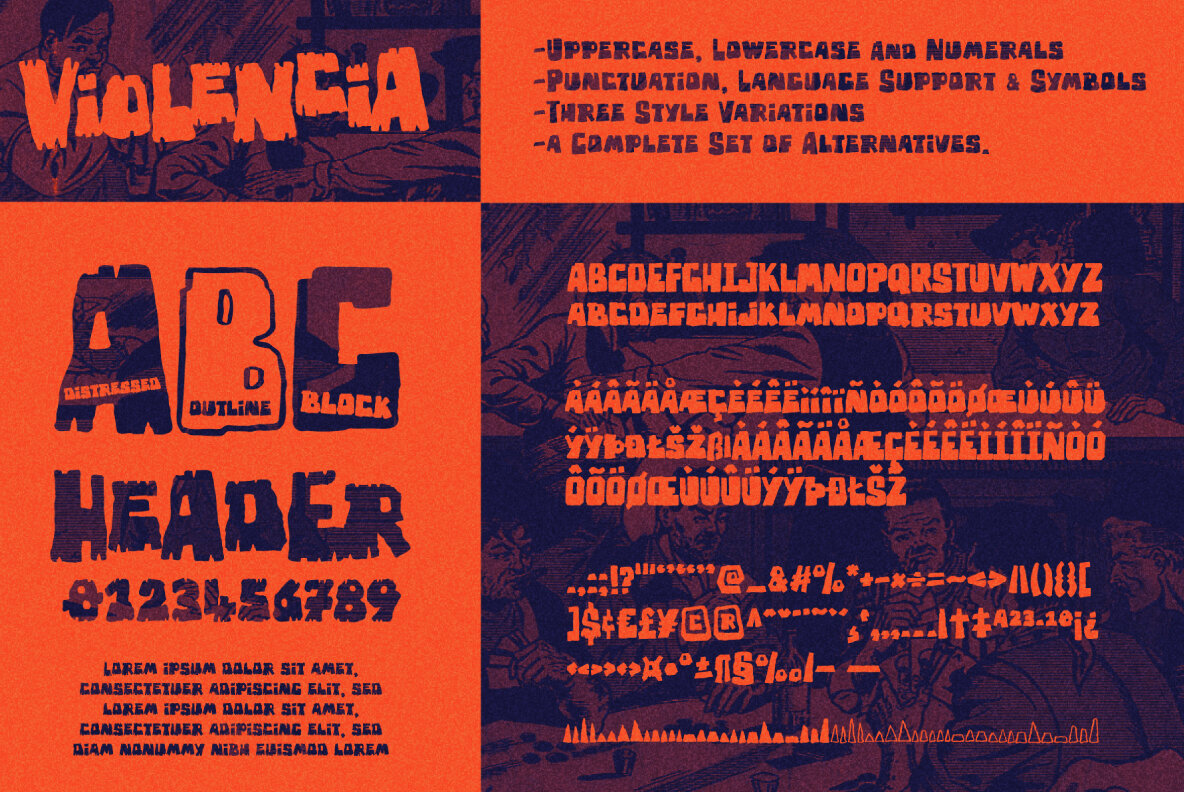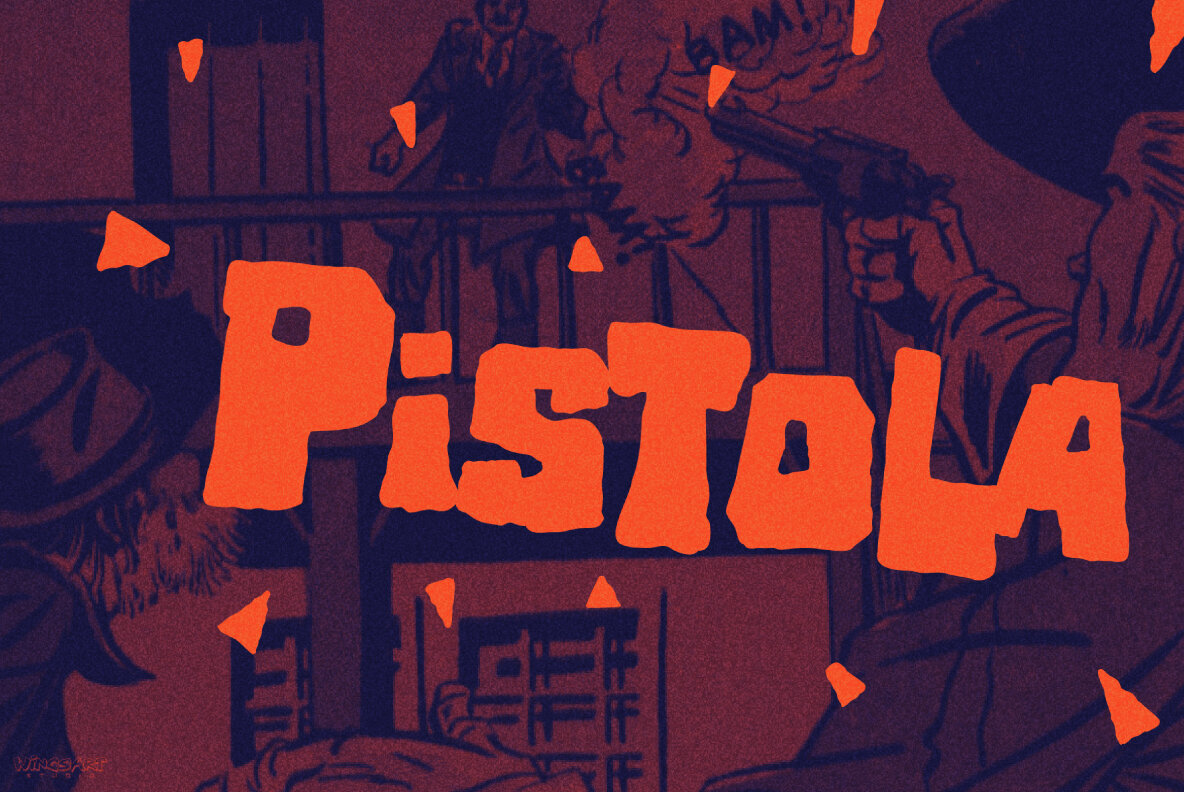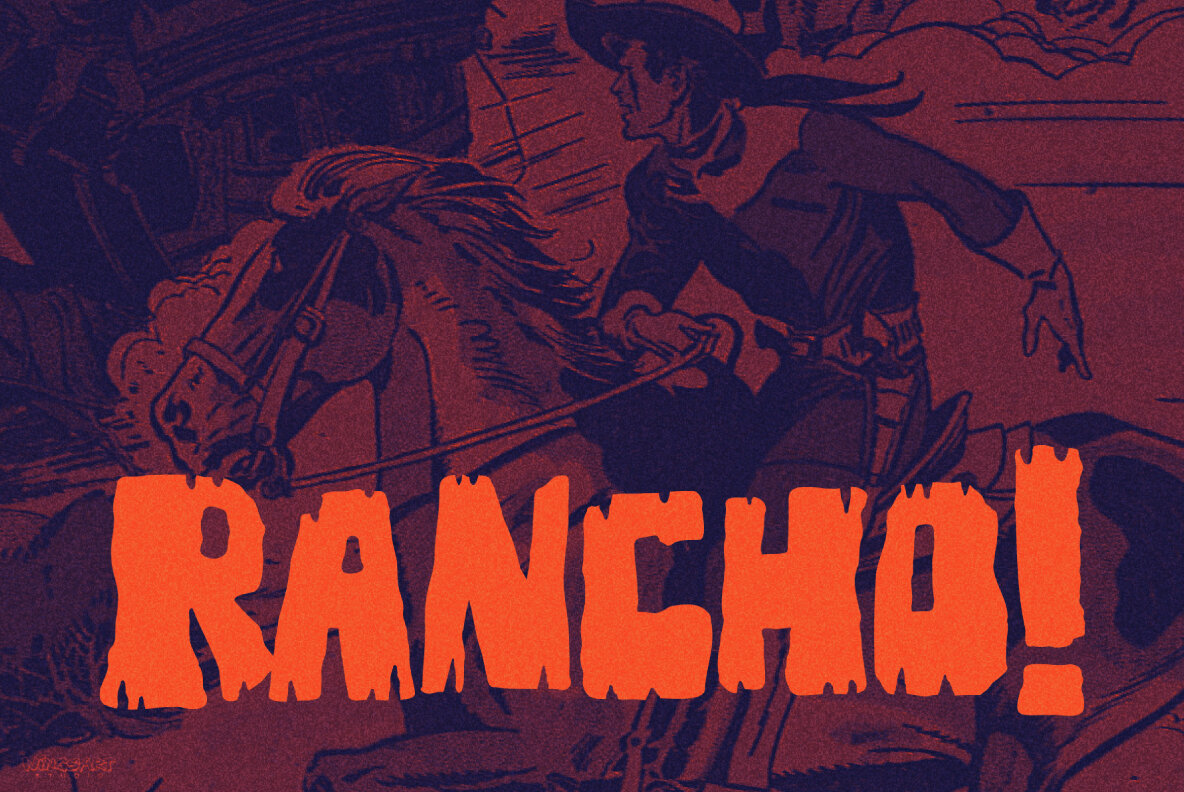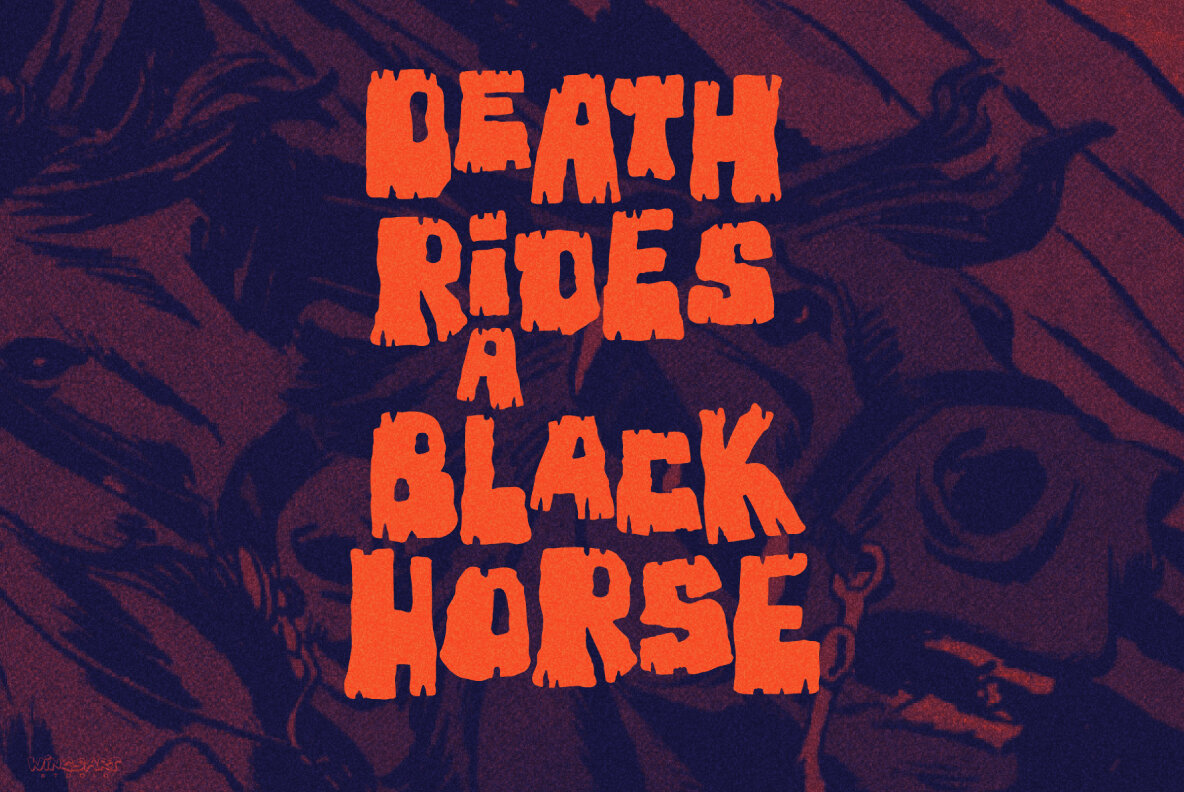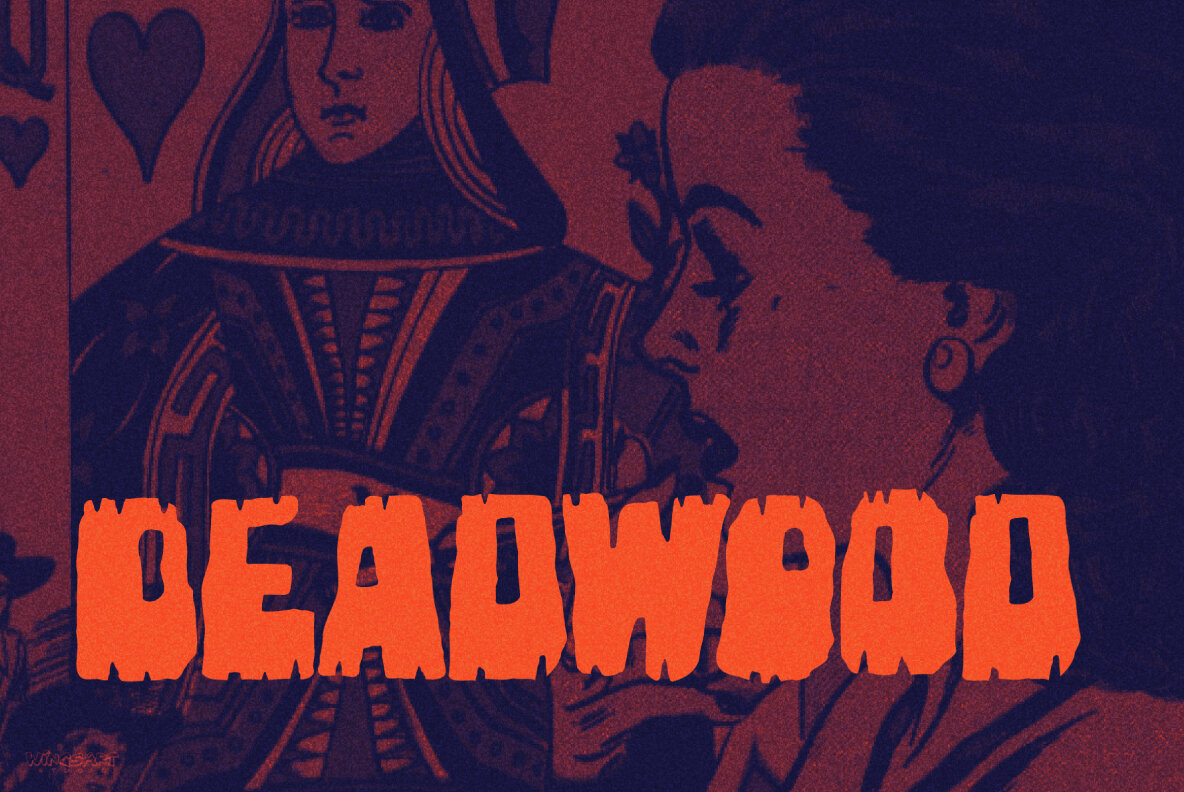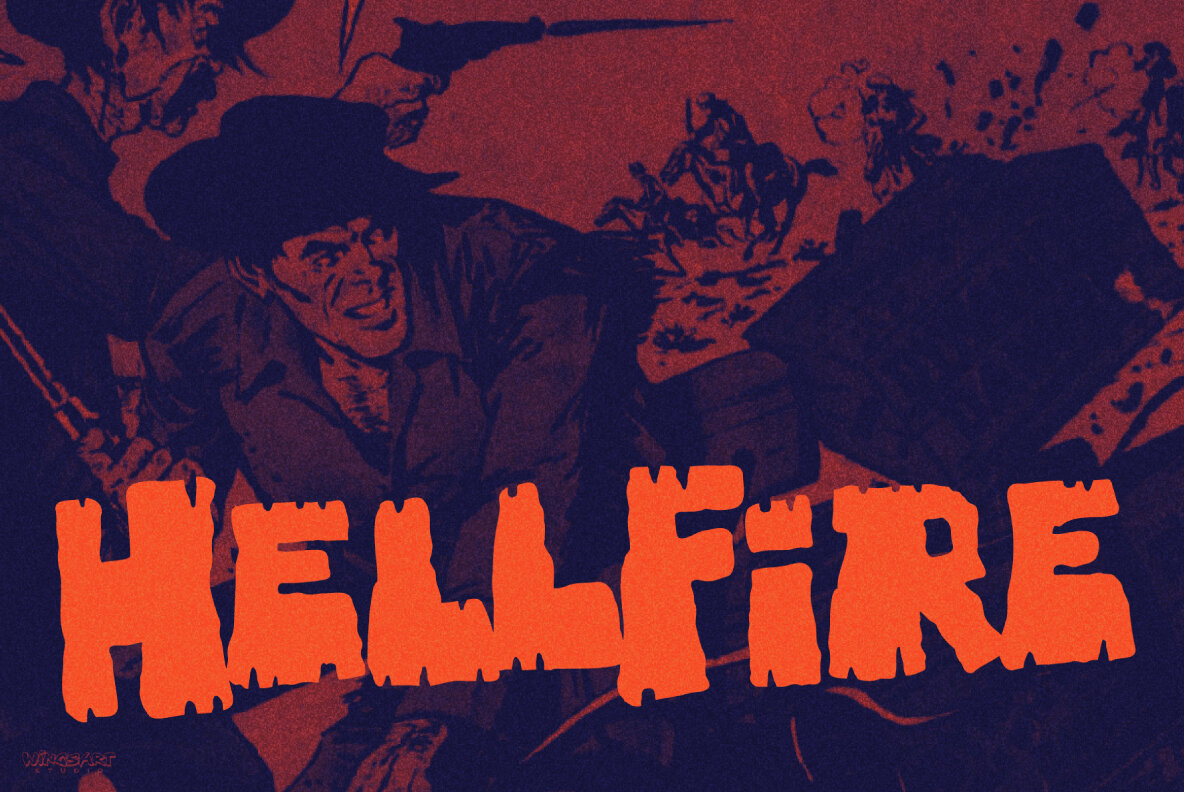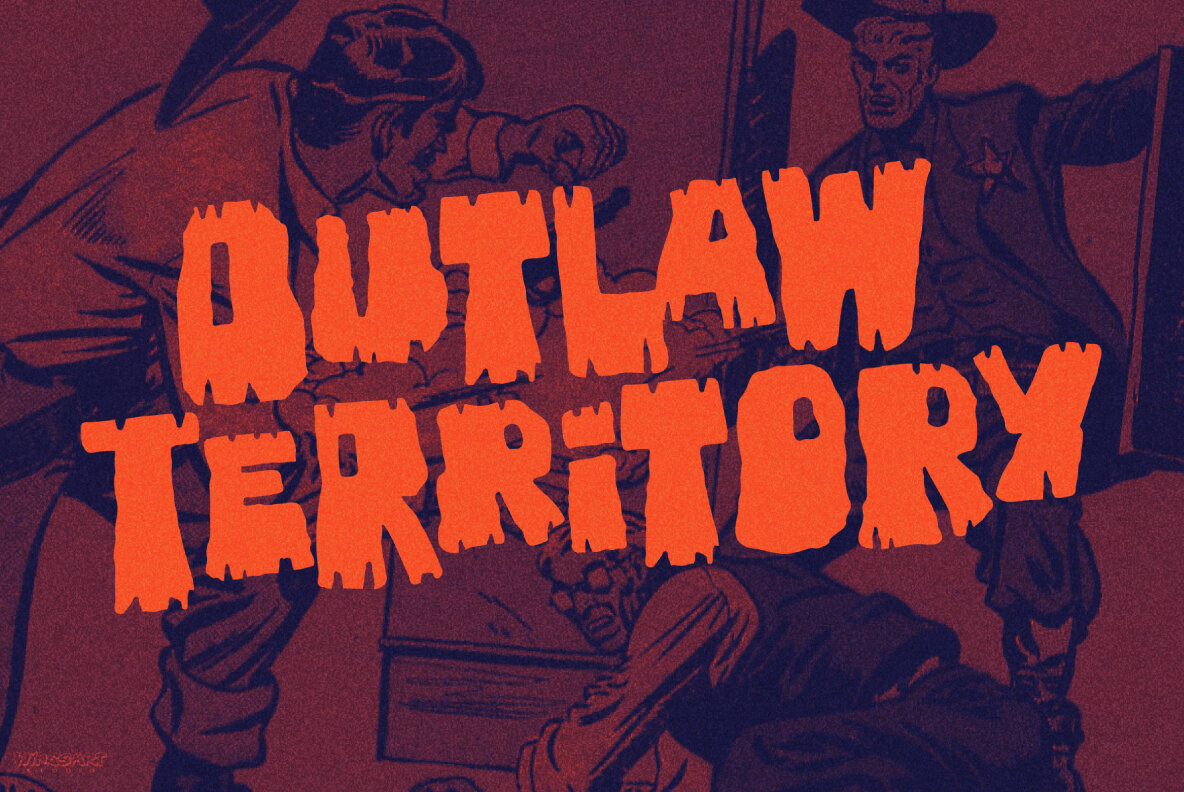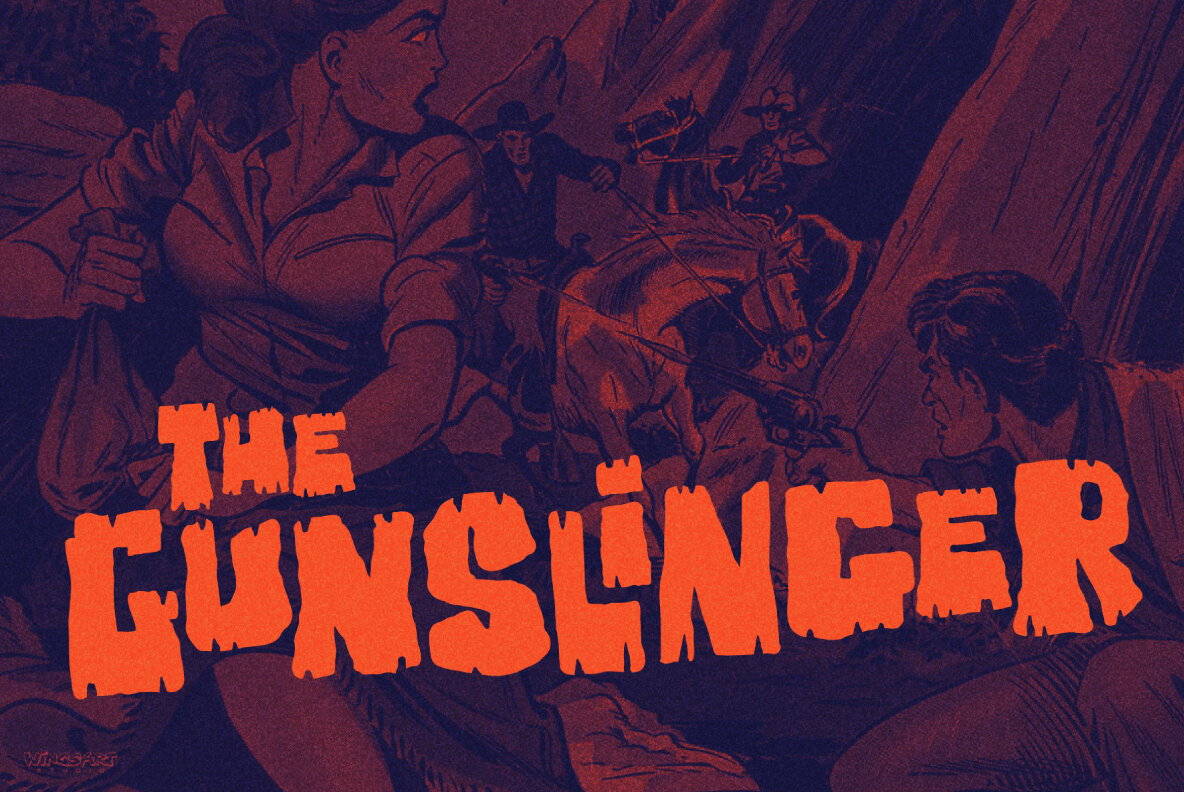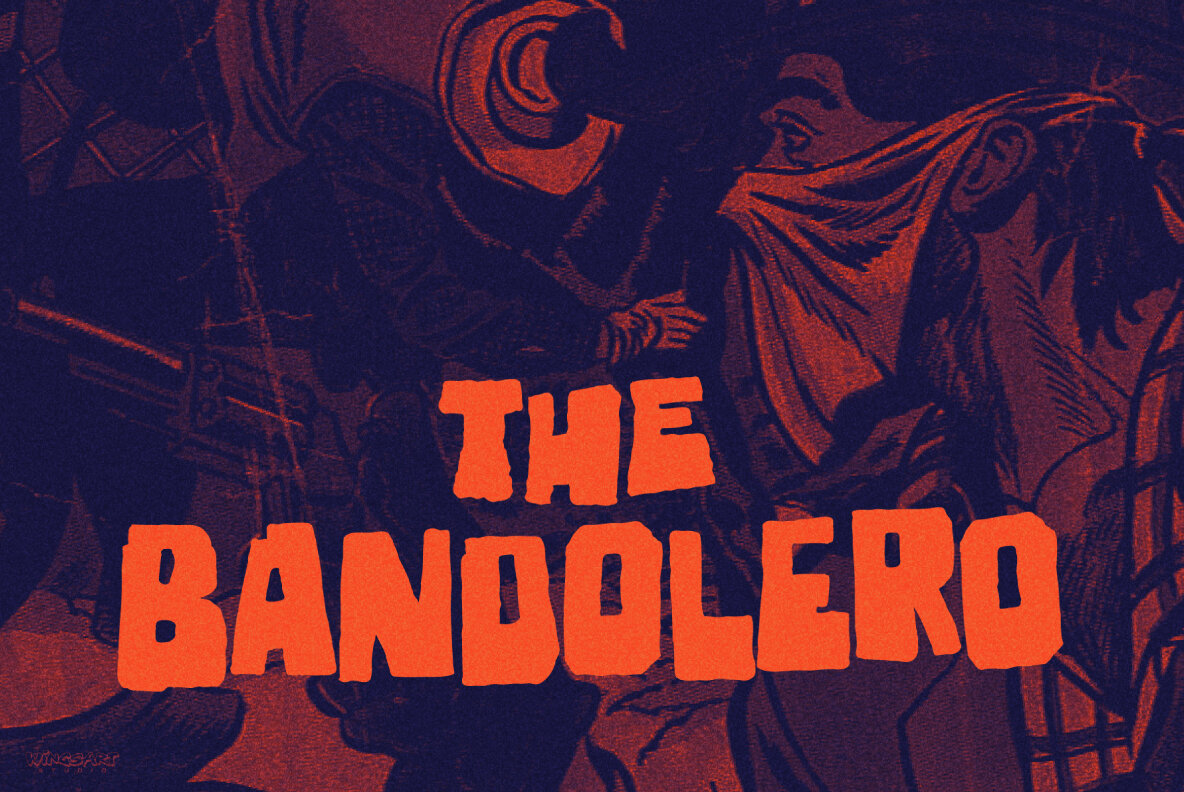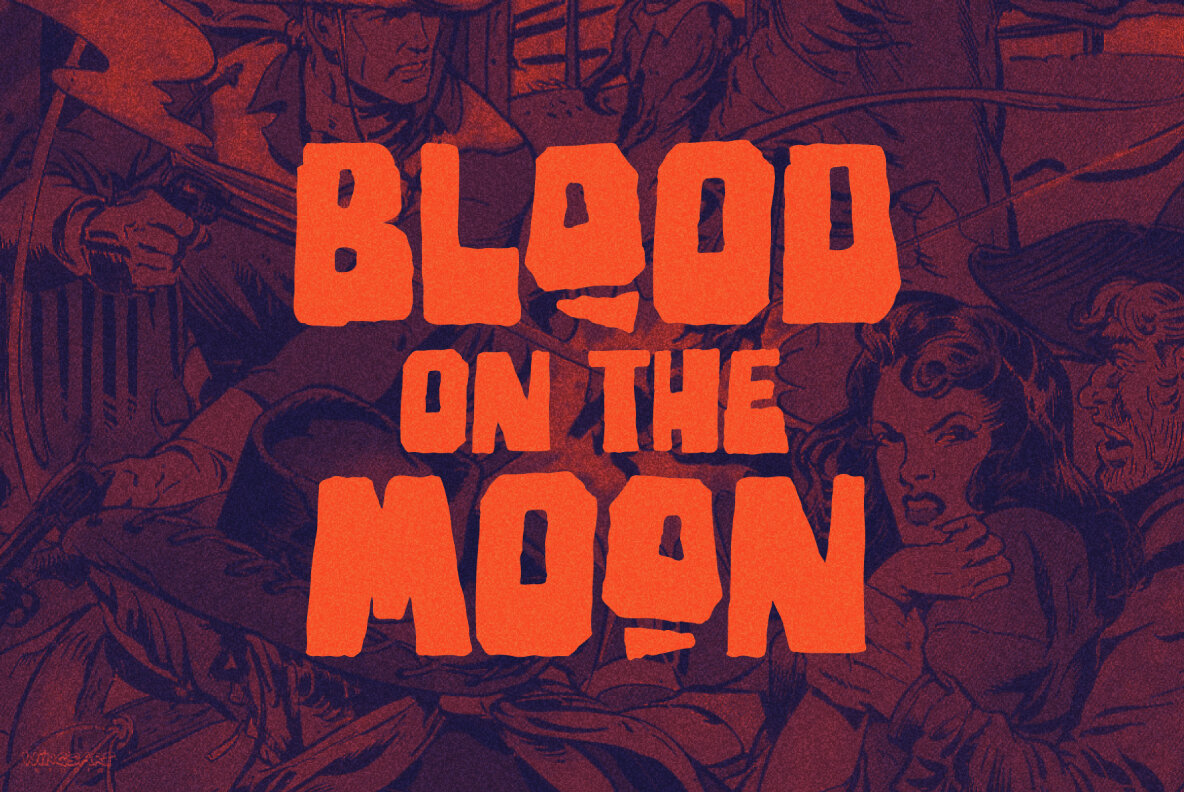
Violencia Font
Violencia is a hand-dawn font inspired by the legendary age of the Wild West and its tales of gunfights, train robberies and blood vendettas. It’s an all-caps design the evokes the textured style of vintage western movie posters, comics and novels. The Violencia font family includes all-caps uppercase and lowercase characters, along with numerals, punctuation, symbols and language support. It also comes with a complete set of alternative characters, all in the 3 unique styles of, Distressed, Outline and Block. Wingsart Studio Design Tip! Mix the uppercase and lowercase characters and look for interesting shape combinations that might occur within the letters. Take advantage of all the alternatives too for a much more custom look that’ll be unique to your design. Contents: